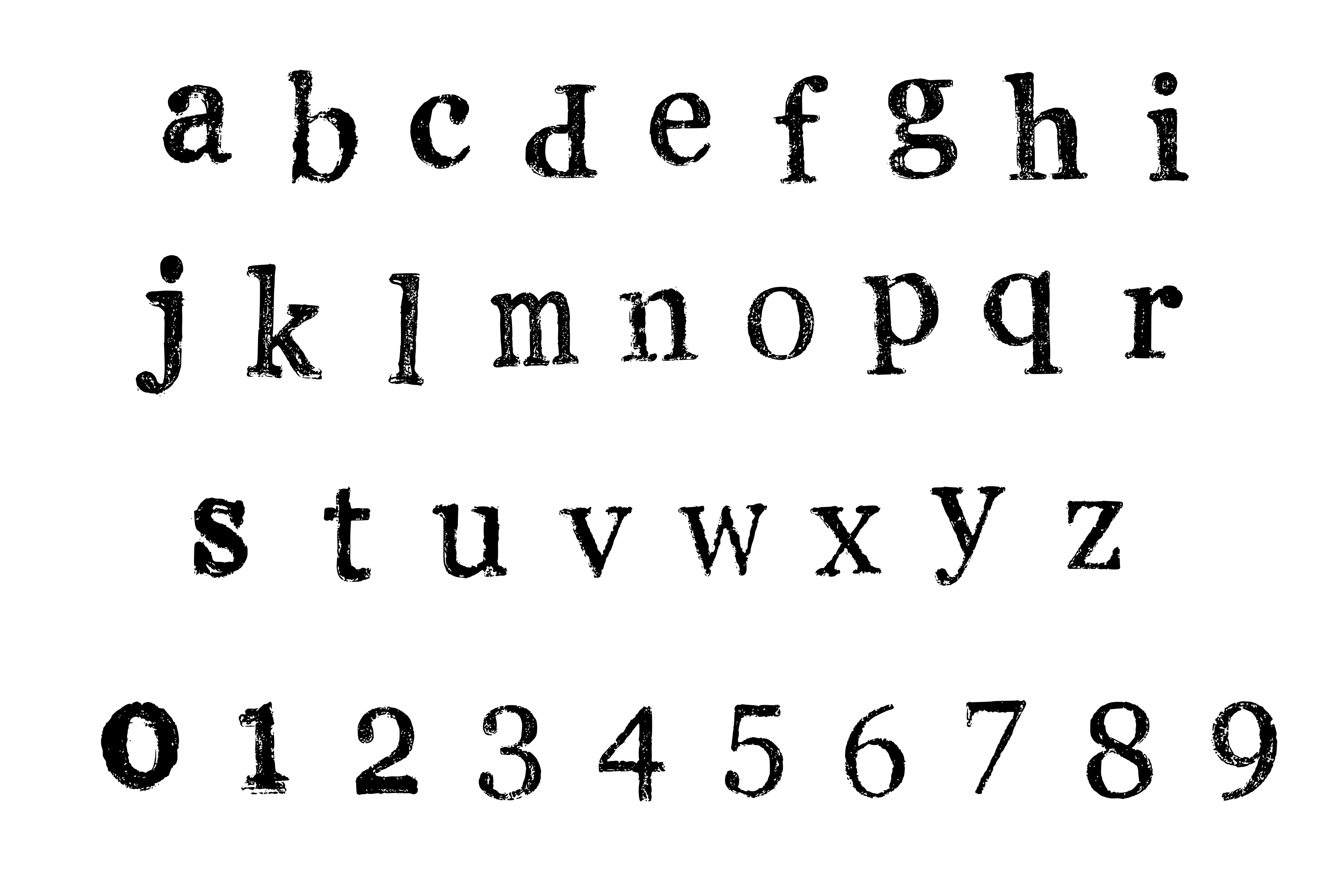
Cool Stamp Fonts References
It is retro stamp font which like using stamp effect with rough texture will perfect for grunge or vintage project. Ideal for branding projects, logos,. Rixstamp is a fancy font inspired of stamps.
Stamp Is An Incredibly Cool Font.
Stamp Fonts Discover Over 1K Stamp Fonts That Use A Variety Of Styles Along With Hand Drawn Embellishments To Suggest Vintage And Retro Commercial Signs And Monograms.